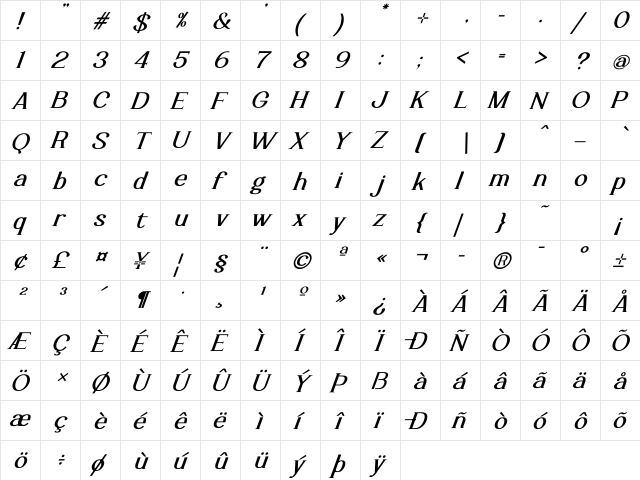
Luimp Bold Italic Bold Font Preview
| Foundry | Kong Font |
| Designer | Kong Font |
Design Context for Luimp Bold Italic Typeface
Luimp Bold Italic offers clean, dependable letterforms without strong stylistic allegiance, making it a practical choice for designers who need flexibility. The dynamic lean of this cut emphasises speed and emphasis in any layout. Its bold stroke weight gives it real presence on the page.
Pro Tip: Try Luimp Bold Italic for annotation and caption copy alongside an upright companion — the contrast in angle creates a dynamic but ordered typographic system.